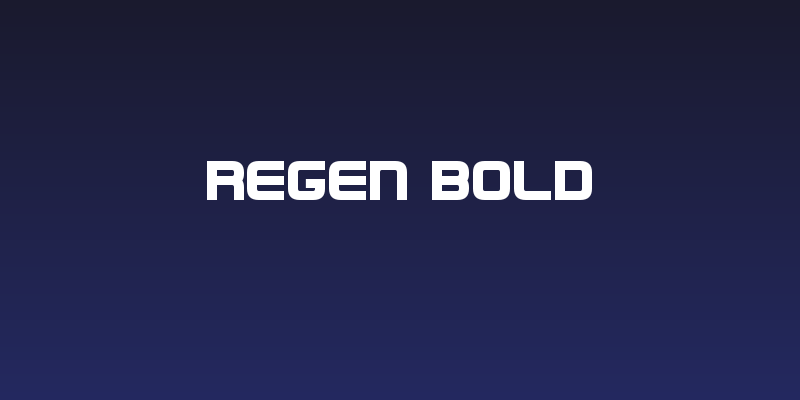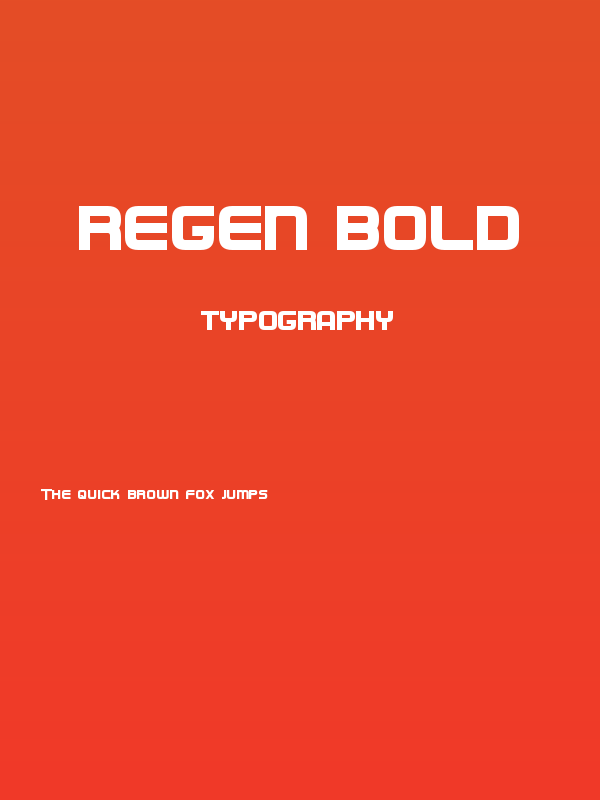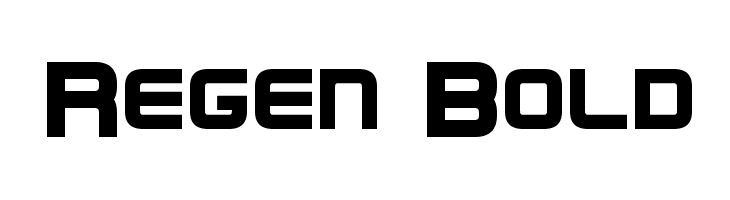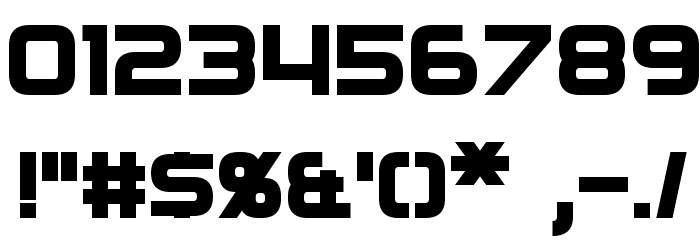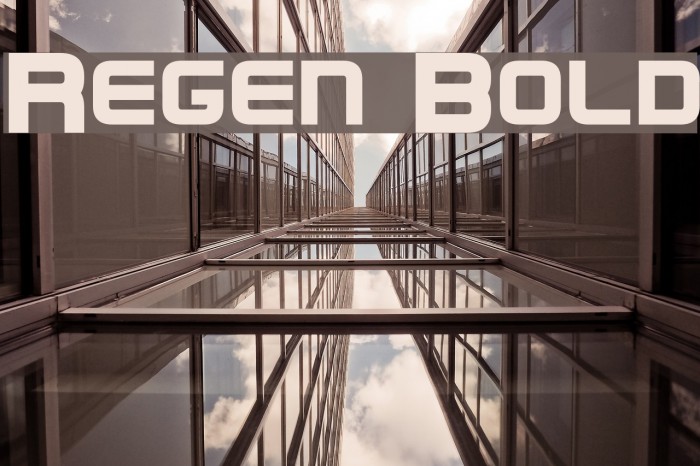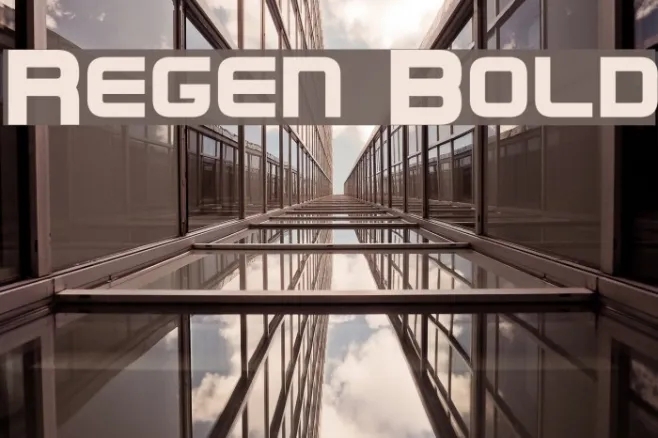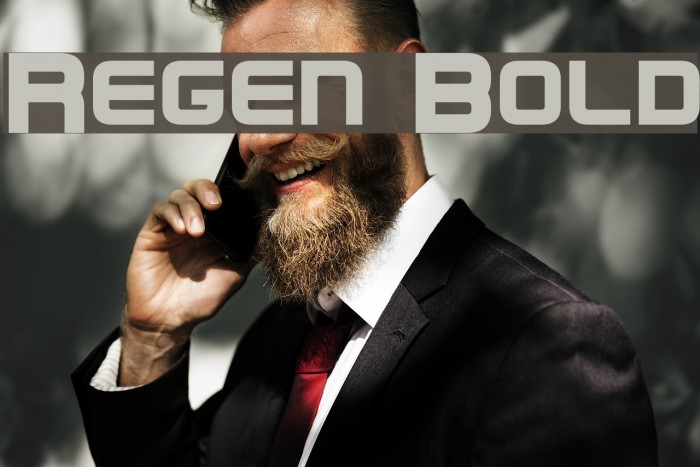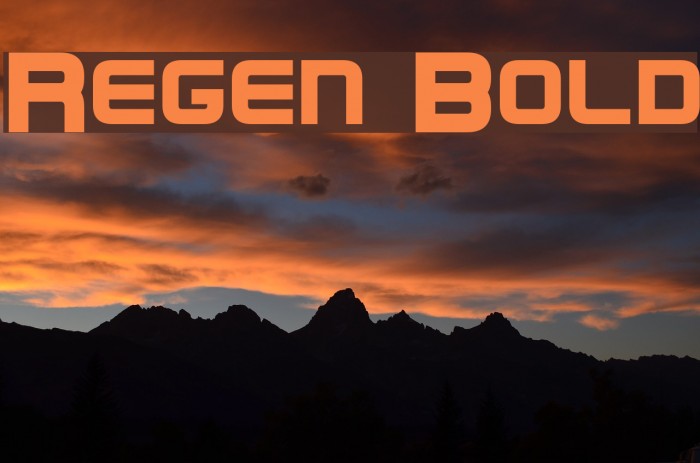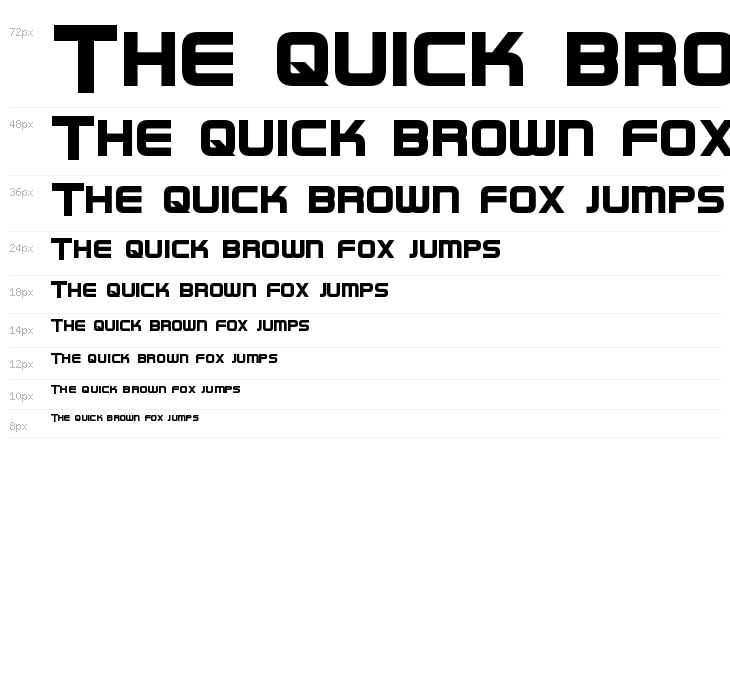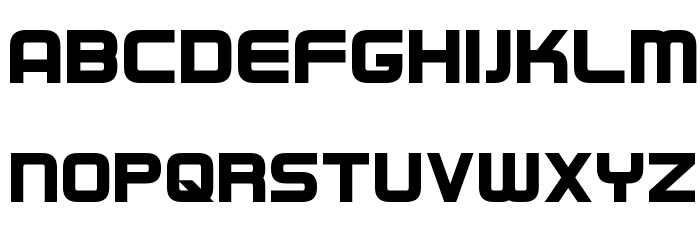
Regen Bold Font
Regen Bold Description
This font features a bold and modern design with a strong geometric structure. The characters are wide and have a uniform thickness, creating a sense of stability and confidence. The uppercase letters are particularly striking, with sharp angles and clean lines that make them stand out. The numbers and special characters maintain the same boldness and clarity, ensuring consistency across all elements. This font is highly legible and commands attention, making it suitable for impactful designs.
| Proposed Projects | Ideal for branding, headlines, posters, and any design requiring a bold statement. |